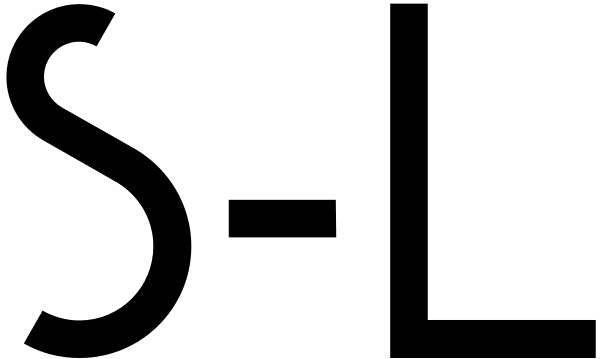
S-L
S-L is a font drawn in 2006 by Benoît Bodhuin for the University of Arts Saint-Luc de Tournai. Reminiscent of Futura, its geometrical drawing is based on the directions of the hexagon, a scrupulously followed constraint which confers on some glyphs...
S-L
S-L Bold